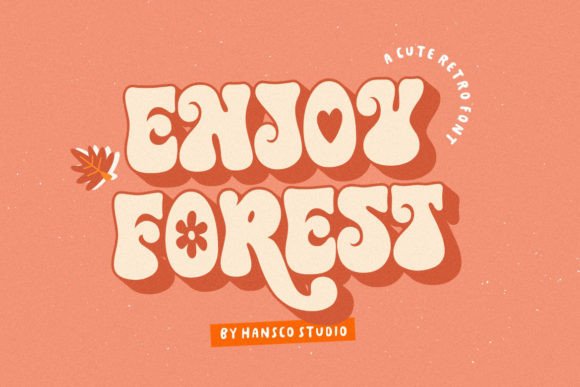
Welcome to the world of Enjoy Forest Font - a font that is not just any regular display font, but a retro serif and bold display font, perfect for creating stunning designs! Are you looking for the best fonts for Canva? Look no further, Enjoy Forest is the answer to all your creative needs.
Created by the talented HansCo, this font family is the perfect combination of boldness and elegance, providing you with the perfect tool to make your designs stand out from the crowd. With Enjoy Forest, you can create designs that are visually appealing, unique, and unforgettable.
Whether you're working on a design for a brand, a product, or an event, Enjoy Forest is the font that will take your work to the next level. It's perfect for use on posters, flyers, logos, and any other design that requires a bold and attention-grabbing font. The retro serif design gives it a classic touch while the bold display makes it contemporary.
What makes Enjoy Forest even more special is its versatility. It can be used for a wide range of projects, from vintage and retro designs to modern and minimalist styles. With this font, you can easily create designs that are both trendy and timeless.